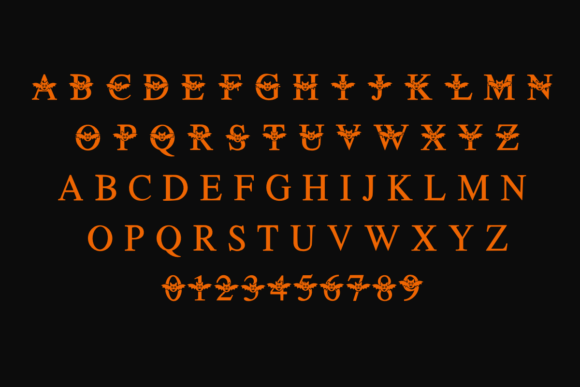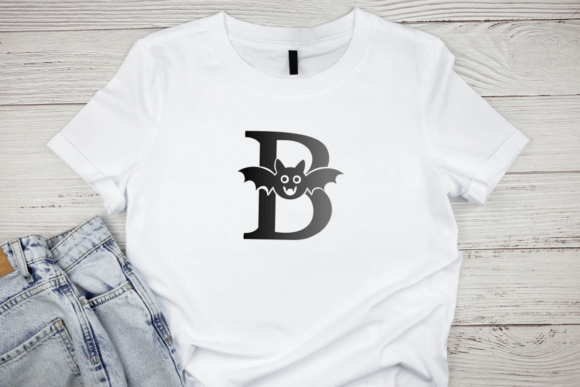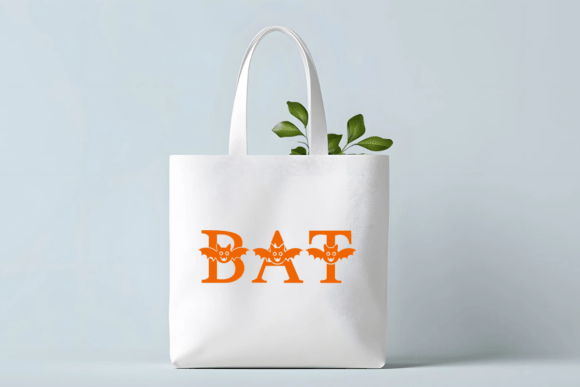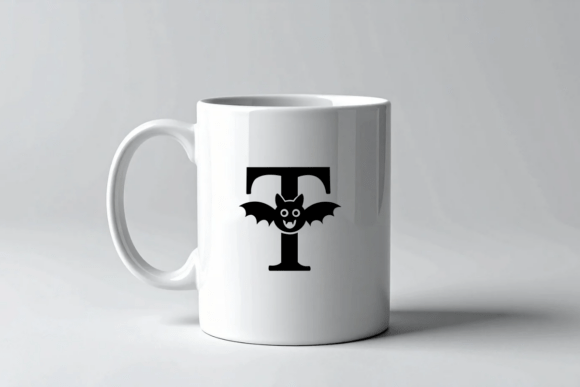
Introducing Ghosty Bat Font: The Perfect Addition to Your Creative Projects
Are you a designer, crafter, or DIY enthusiast looking for a unique and captivating font to elevate your creative projects? Look no further than Ghosty Bat Font! This lovely decorative font is sure to add a touch of magic to your designs, and we’re excited to share its features and benefits with you.
What is Ghosty Bat Font?
Ghosty Bat Font is a carefully crafted decorative font that boasts a distinctive and charming aesthetic. Its whimsical design makes it perfect for a wide range of creative projects, from Halloween-themed designs to year-round crafts. Whether you’re working on invitations, signs, crafts, or digital projects, Ghosty Bat Font is sure to add a delightful touch.
Key Features of Ghosty Bat Font
- Unique Design: Ghosty Bat Font features a one-of-a-kind design that’s sure to capture attention. Its ghostly and bat-inspired characters will add a playful and spooky touch to your projects.
- High-Quality: Ghosty Bat Font is a high-quality font that’s been carefully crafted to ensure crisp and clear results, even at small sizes.
- Versatile: This font is perfect for a wide range of creative projects, including Halloween-themed designs, crafts, invitations, signs, and more.
Why Choose Ghosty Bat Font?
With so many fonts available, why choose Ghosty Bat Font? Here are just a few reasons why designers and crafters love this font:
- Adds a Touch of Whimsy: Ghosty Bat Font adds a playful and whimsical touch to your designs, making them stand out from the crowd.
- Perfect for Halloween: This font is perfect for Halloween-themed designs, but its versatility means you can use it for year-round projects too.
- Easy to Pair: Ghosty Bat Font pairs well with a wide range of other fonts, making it easy to incorporate into your existing design workflow.
Tips and Tricks for Working with Ghosty Bat Font
Here are a few tips and tricks to help you get the most out of Ghosty Bat Font:
- Experiment with Sizes: Try using Ghosty Bat Font in different sizes to add visual interest to your designs.
- Pair with Other Fonts: Experiment with pairing Ghosty Bat Font with other fonts to create unique and eye-catching combinations.
- Use for Headlines and Titles: Ghosty Bat Font is perfect for headlines and titles, where its bold and playful design can really shine.